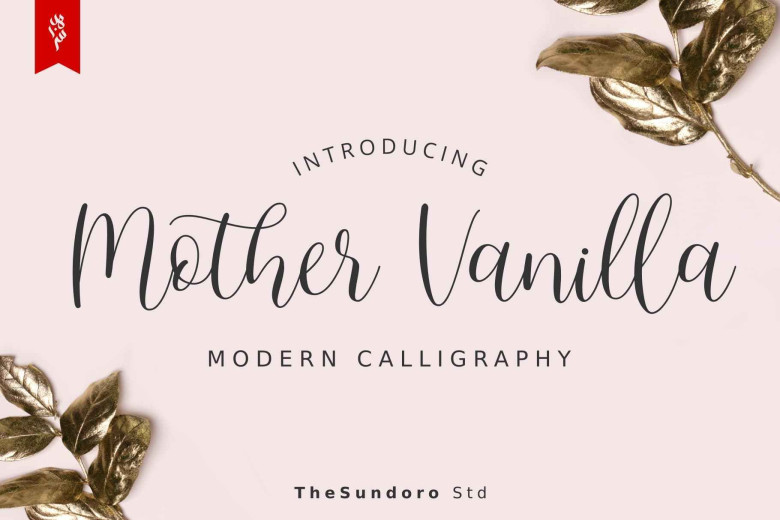
Mother Vanilla Calligraphy Script Font
Mother Vanilla Calligraphy Font is a fresh and casual script. It will give a fresh and trendy touch to your artwork. Mother Vanilla has features that makes the font look more natural and easy to use.